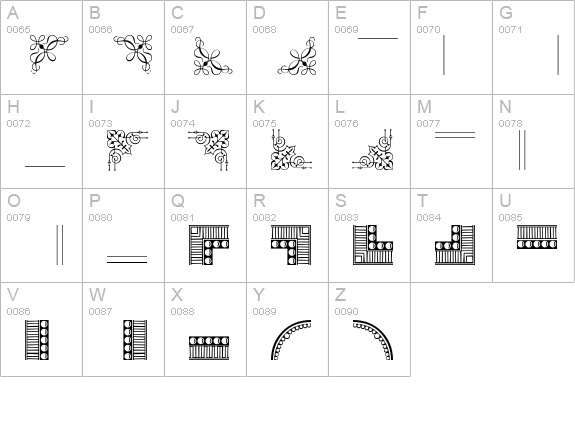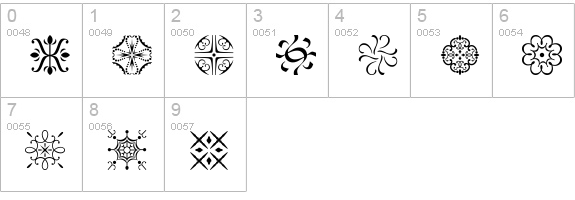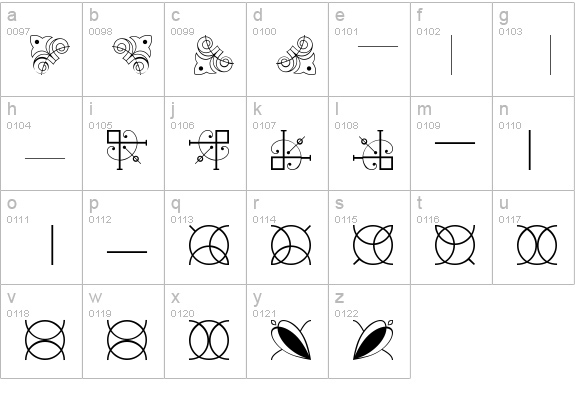
BorderfontClassicalsPlain Font Details
BorderfontClassicalsPlain is a classic and elegant font that exudes sophistication and timelessness. With its clean lines and traditional design, this font is perfect for adding a touch of refinement to any project. The simple yet stylish aesthetic of BorderfontClassicalsPlain makes it versatile and suitable for a wide range of applications, from invitations and stationery to branding and packaging. Best of all, BorderfontClassicalsPlain is available for free download at FontsMarket.com. This means you can easily access this beautiful font without any cost, making it a valuable addition to your collection of typefaces. Whether you're a designer looking for a new go-to font or simply appreciate the beauty of classic typography, BorderfontClassicalsPlain is sure to impress with its timeless appeal and graceful charm.